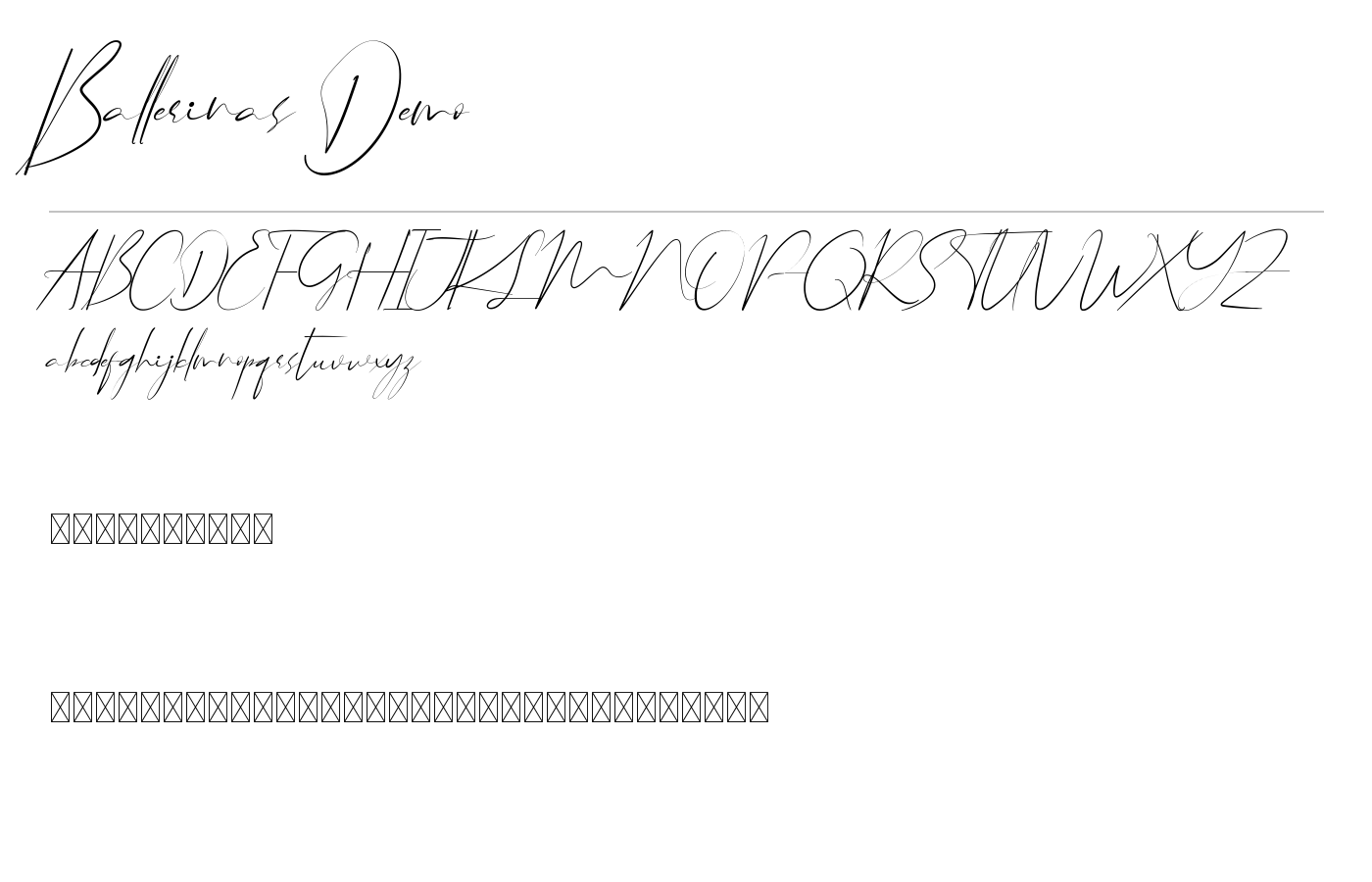
Ballerinas Demo is a delicate, elegant script font characterized by its thin, flowing strokes and graceful, handwritten style. With a light weight and high contrast, its tall, slender letterforms bring a sense of sophistication and femininity, making it ideal for fashion branding, invitations, and luxury design projects where a refined, personal touch is desired. This font works best in large sizes for headlines or logos, highlighting its artistic, airy personality.
Ballerinas Demo Font
About Ballerinas Demo Font